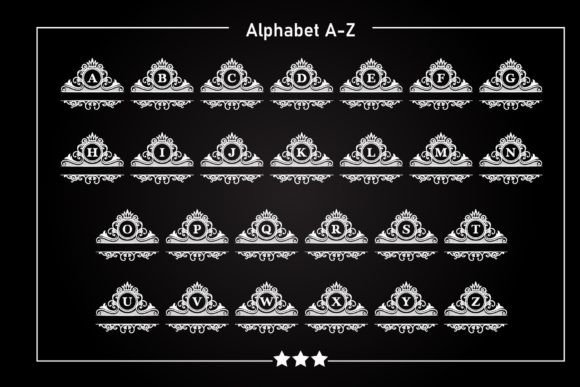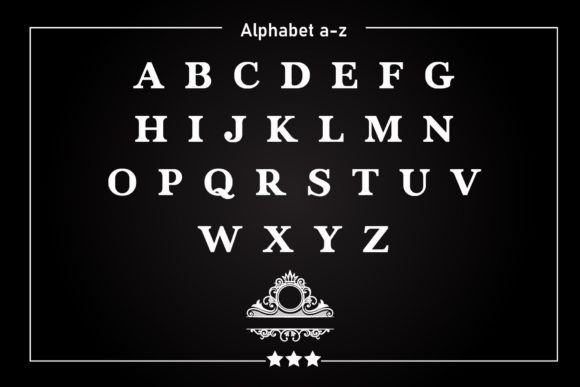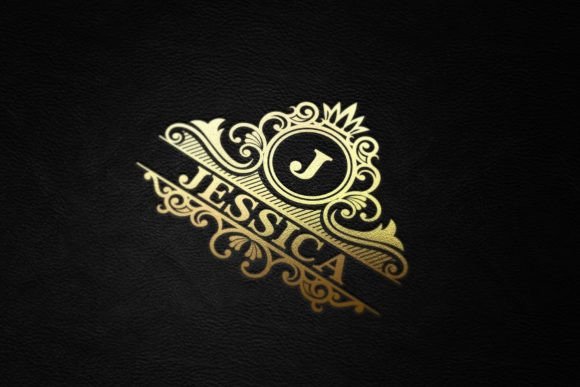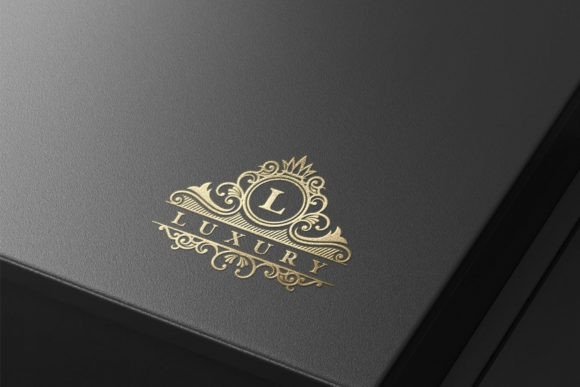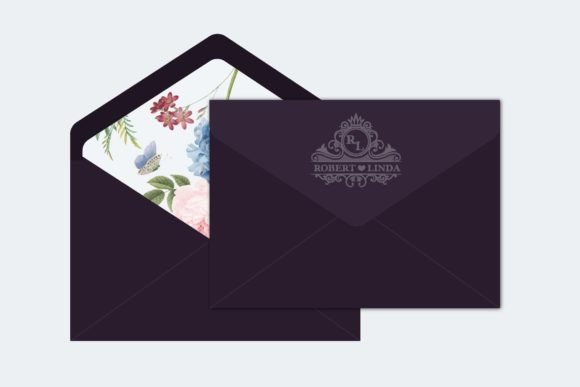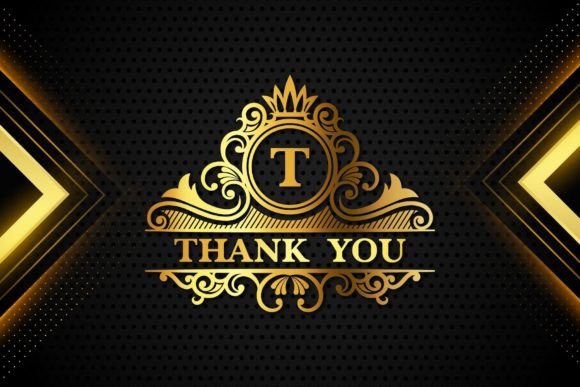
Swanky Monogram Font
Swanky Monogram is a luxurious and beautiful vintage-style monogram font. Comes with matching serif fonts. Fall in love with its authentic feel and use it to create gorgeous invitations, beautiful stationary art, eye-catching social media posts, and greeting cards. Add this beautiful font to each of your creative ideas and notice how it makes them stand out!